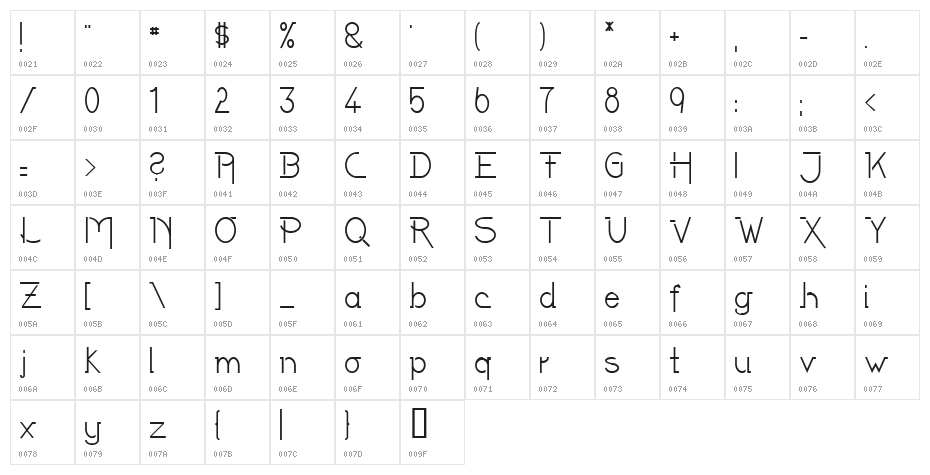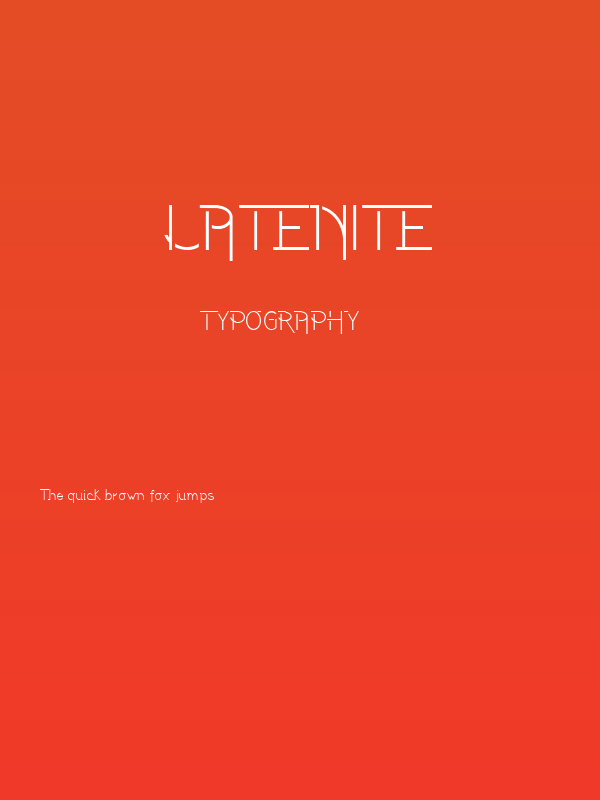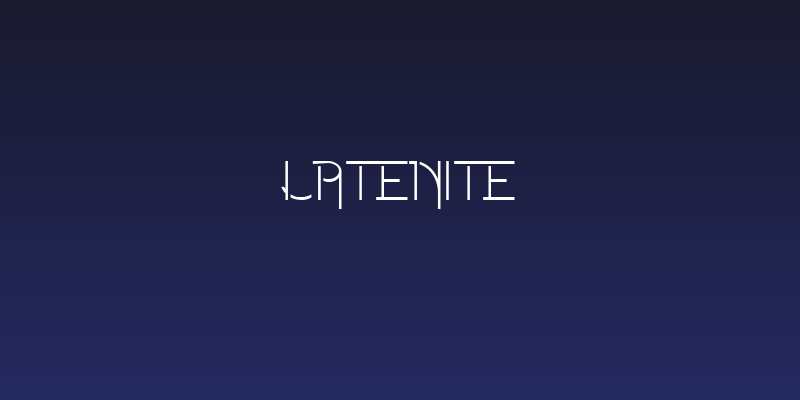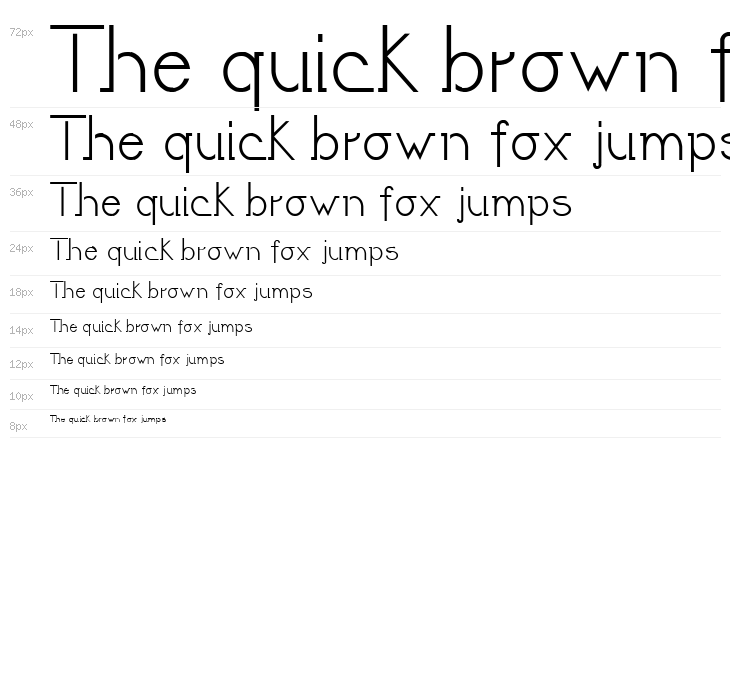
LateNite Font
LateNite Description
This font features a unique and modern design with a geometric and minimalist approach. The uppercase letters are characterized by their angular and linear forms, creating a futuristic and tech-inspired look. The lowercase letters maintain a more rounded and smooth appearance, providing a nice contrast to the sharpness of the uppercase. The numerals are consistent with the overall style, offering a clean and straightforward design. Special characters are well-integrated, maintaining the font's cohesive aesthetic. The font's overall appearance is sleek and contemporary, making it suitable for a variety of design projects.
| Use Case | Logos, Headlines, Digital media |
| Proposed Projects | Ideal for tech branding, modern posters, digital media, and futuristic design projects. |